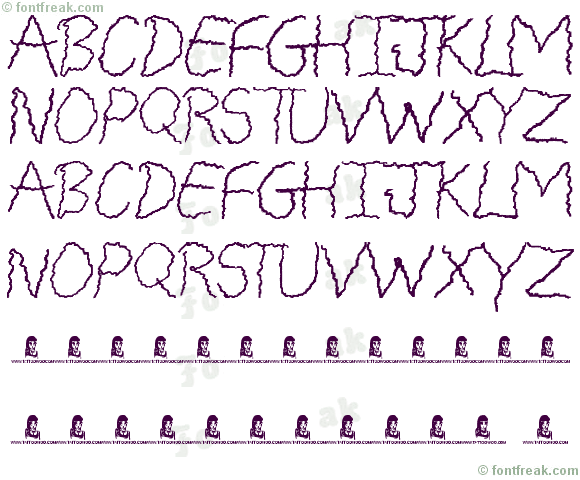
Freaky Friday
About Freaky Friday
Freaky Friday, designed by Jonathan S. Harris, is a distinctive display font that captures the essence of playful creativity. This decorative typeface features an irregular, hand-drawn style that evokes a sense of whimsy and spontaneity. The stroke weight varies throughout the characters, creating a dynamic visual appeal that draws attention. With its jagged edges and uneven baseline, Freaky Friday exudes an energetic vibe, making it perfect for projects that require a unique touch.
This font is ideal for a variety of use cases, including eye-catching movie posters that aim to grab viewers' attention, edgy restaurant menus that want to convey a fun, casual atmosphere, and vibrant social media graphics that stand out in crowded feeds. Additionally, it can be utilized for creative branding in the tattoo industry or for promotional materials for events like Halloween parties, where a playful yet slightly spooky aesthetic is desired. The target audience for this font includes graphic designers, small business owners, and content creators looking for a font that adds character and flair to their projects.
What makes the Freaky Friday font free download particularly appealing is its ability to infuse personality into any design. Its unconventional style encourages creativity, allowing users to step outside the box and explore new design possibilities. Whether you're crafting an invitation, designing merchandise, or creating digital content, this font can transform ordinary text into an extraordinary visual experience. With its unique character and versatile applications, Freaky Friday stands out as a must-have typeface for anyone looking to make a bold statement in their design work.